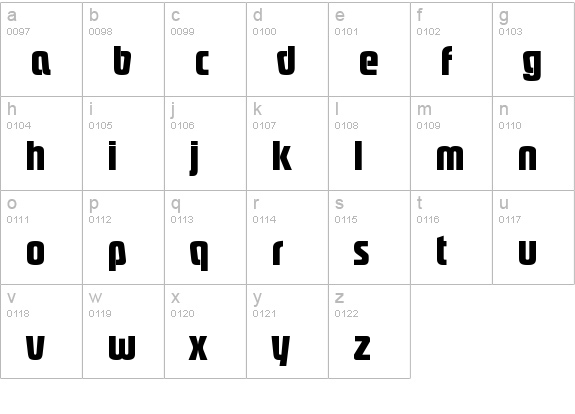
PasadenaSerial-Xbold-Regular is the standard, neutral variant in the PasadenaSerial typeface family \xE2\x80\x94 well suited to general body text, paragraphs, and standard typographic work.
PasadenaSerial-Xbold-Regular font is a sleek and modern typeface that exudes confidence and professionalism. With its bold and striking design, this font is perfect for making a bold statement in your projects. Whether you are creating posters, advertisements, or branding materials, PasadenaSerial-Xbold-Regular font will surely capture the attention of your audience. The best part about PasadenaSerial-Xbold-Regular font is that it is completely free to download at FontsMarket.com. This means that you can easily enhance your designs with this stunning font without having to spend a dime. So why wait? Download PasadenaSerial-Xbold-Regular font now and take your designs to the next level!